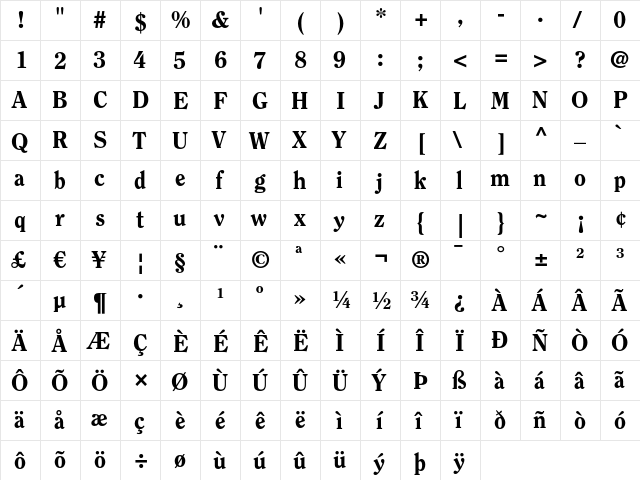
ITC Clearface LT Heavy
Design Context for ITC Clearface LT Typeface
ITC Clearface LT offers clean, dependable letterforms without strong stylistic allegiance, making it a practical choice for designers who need flexibility. Its slender proportions lend an understated elegance to any composition.